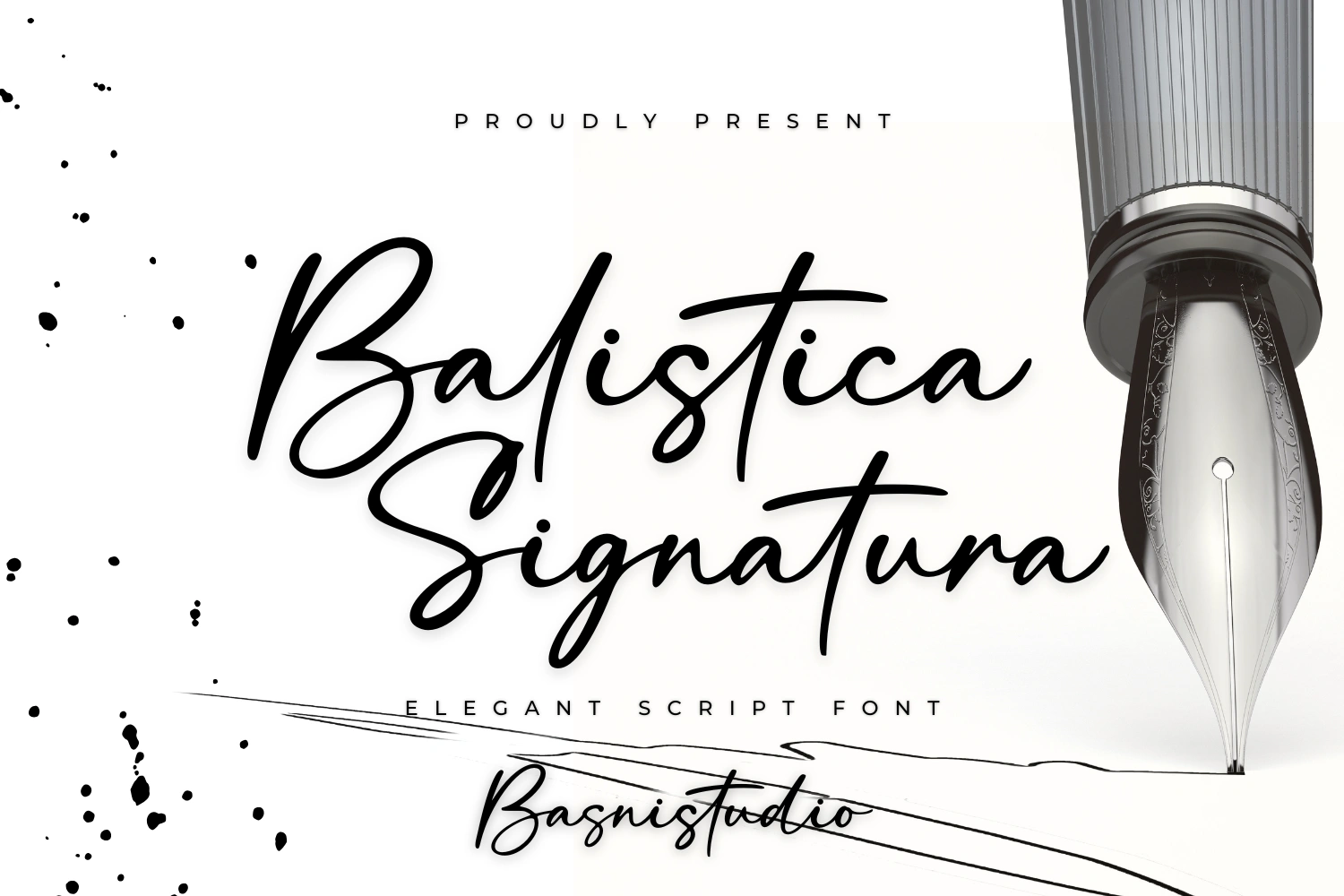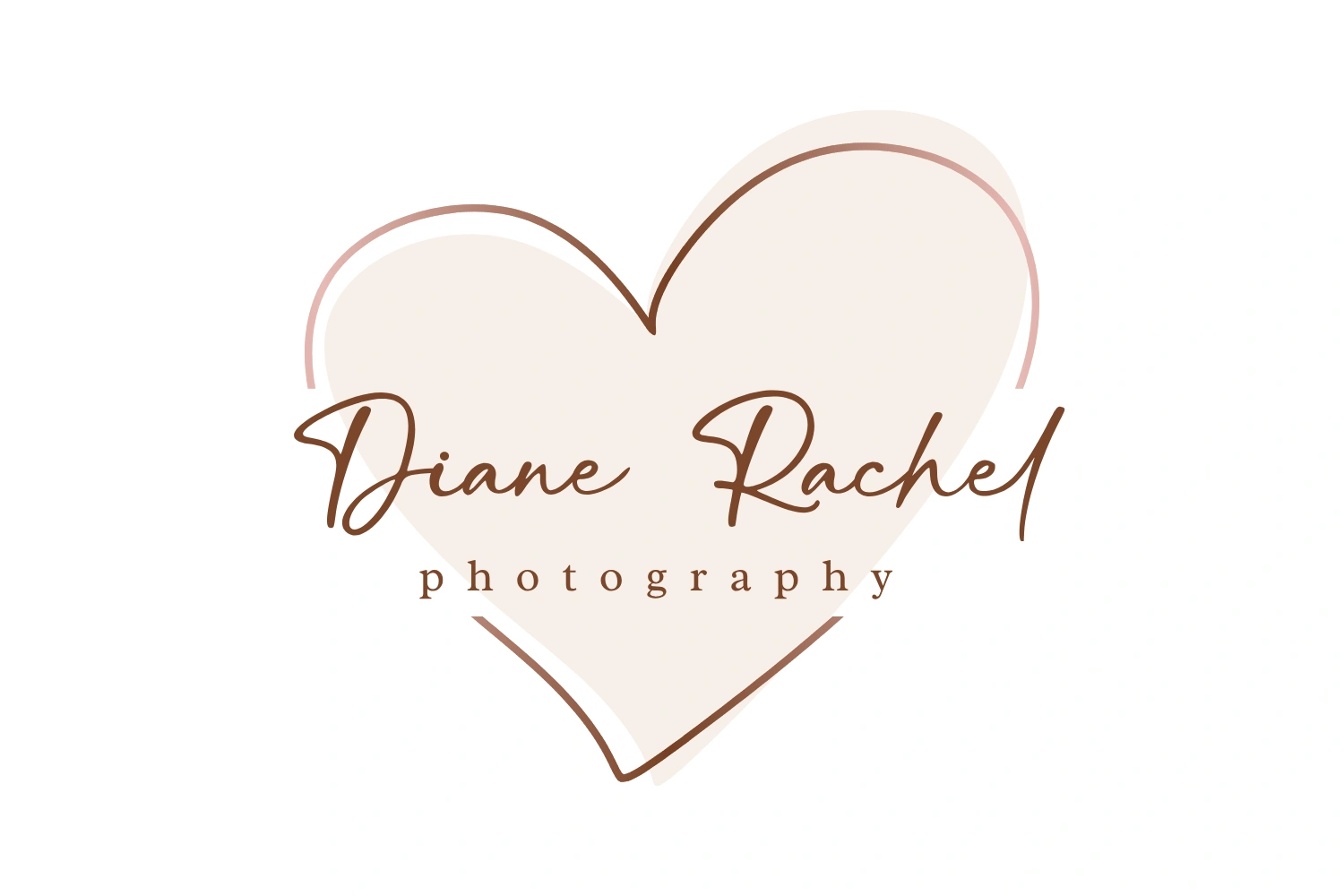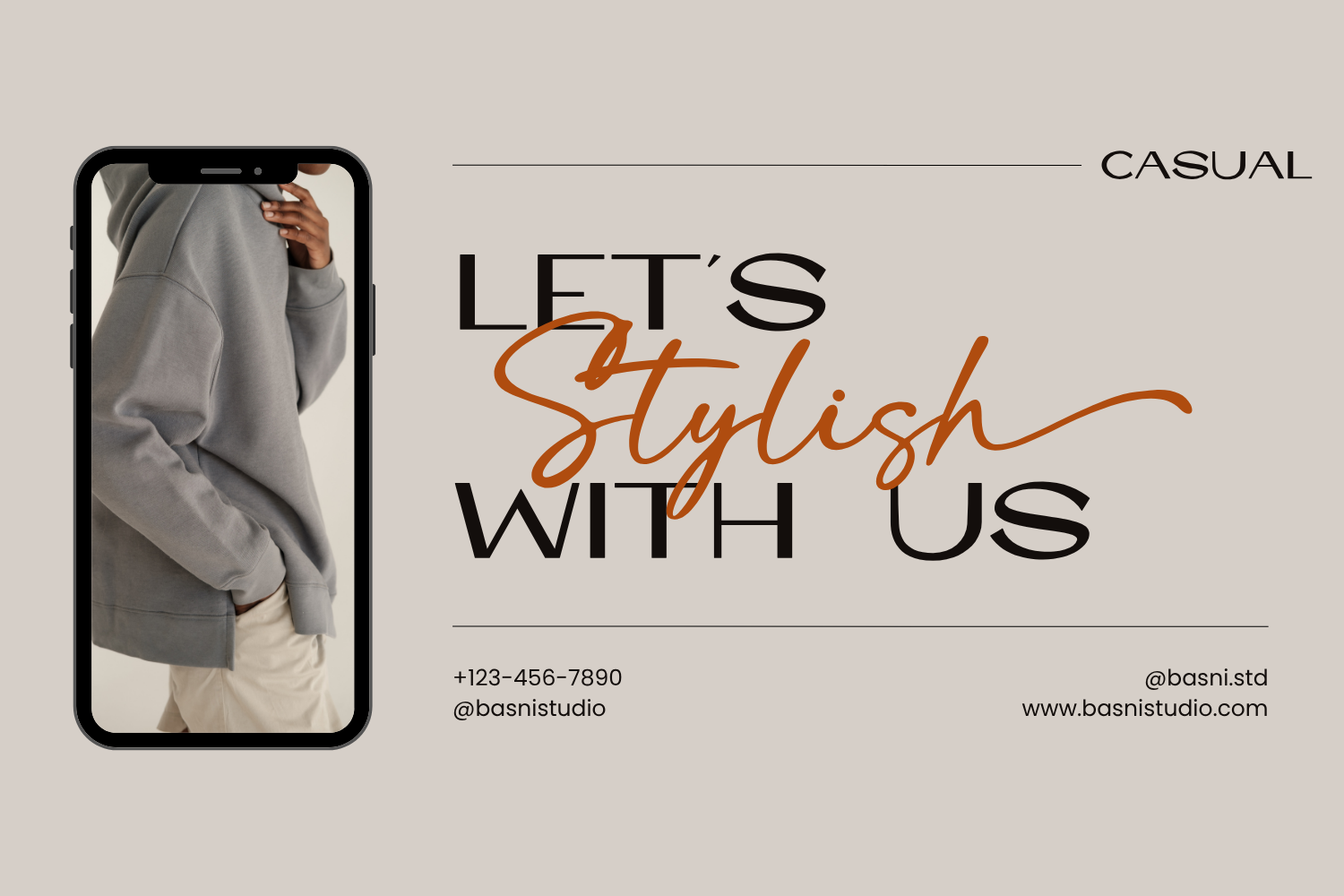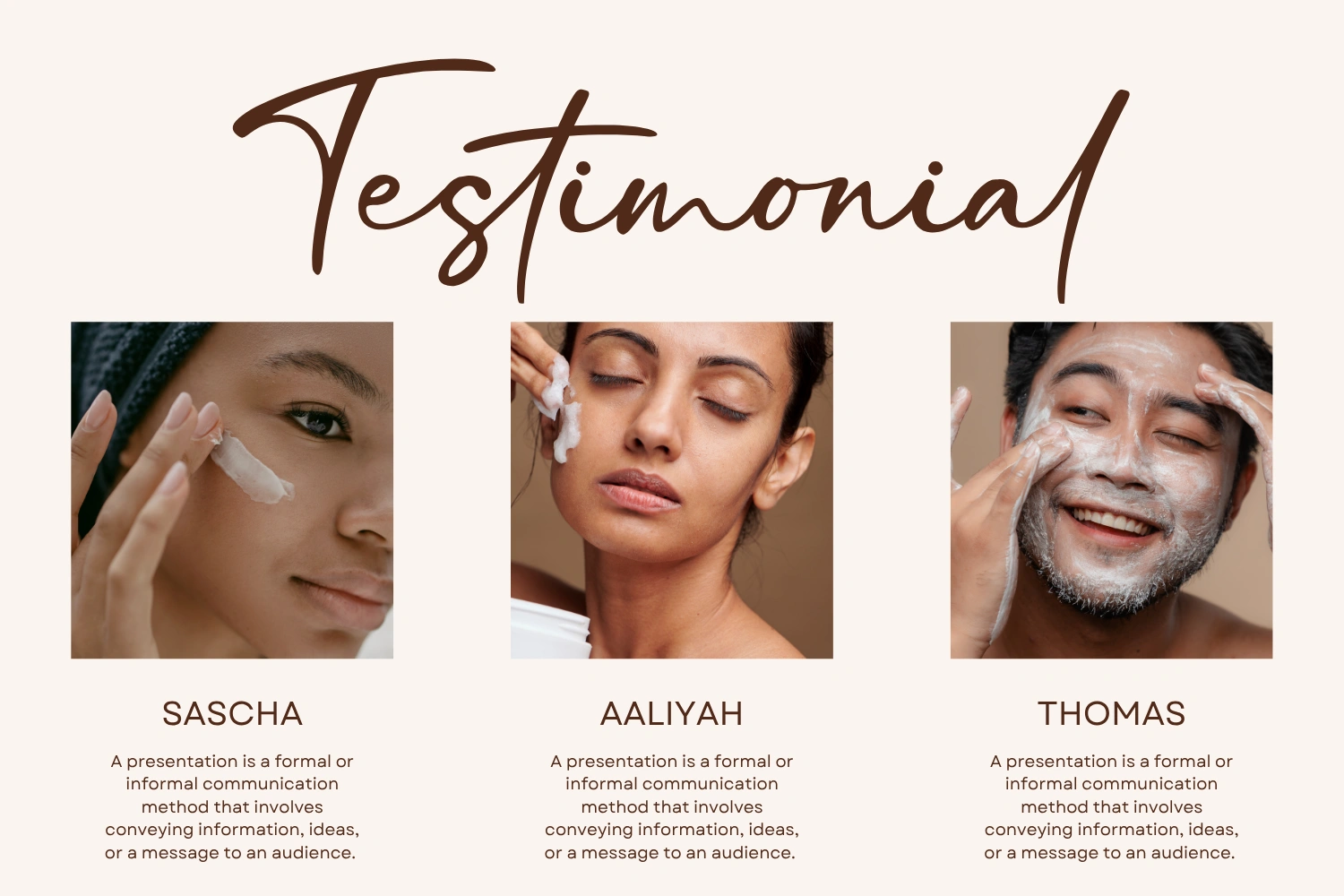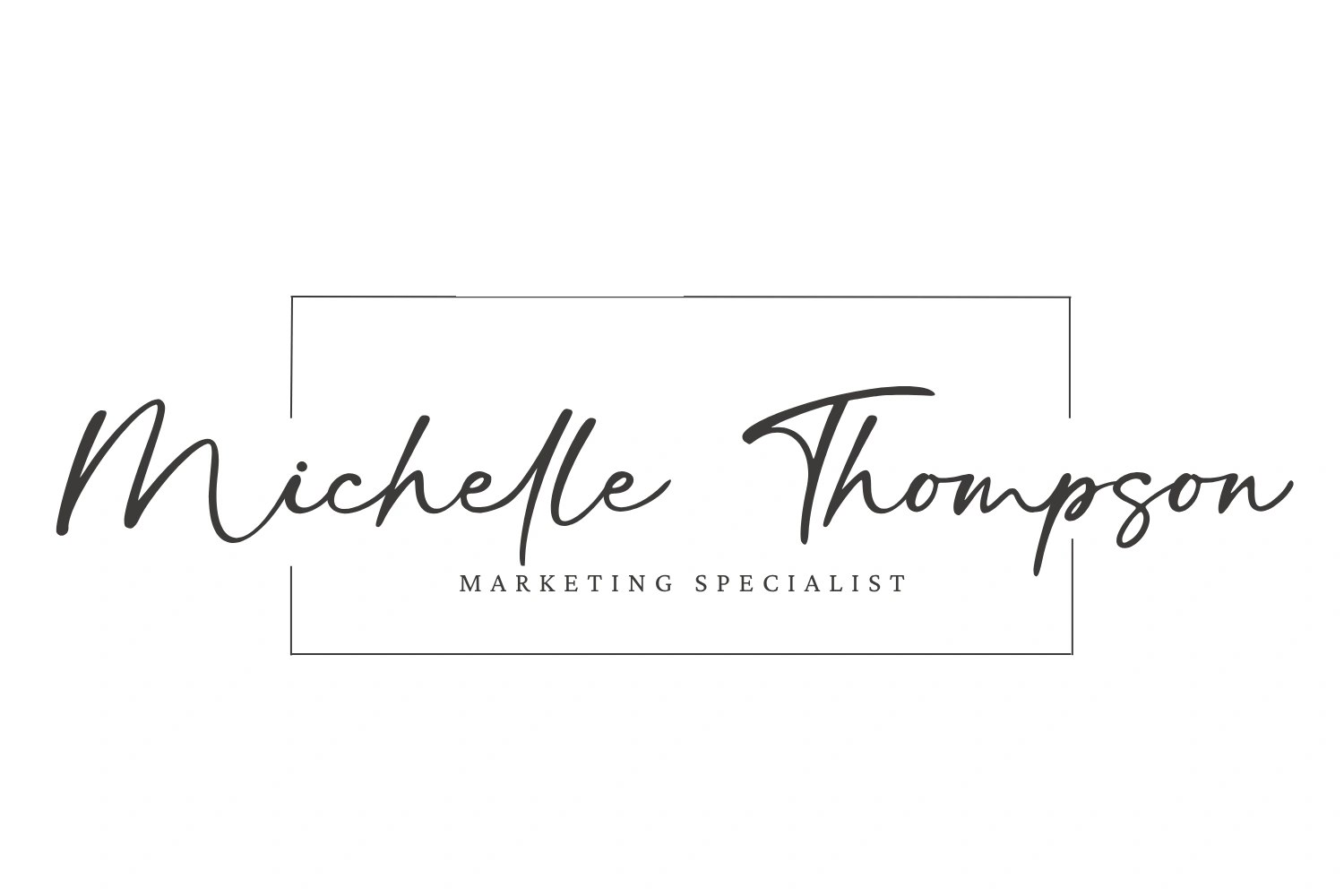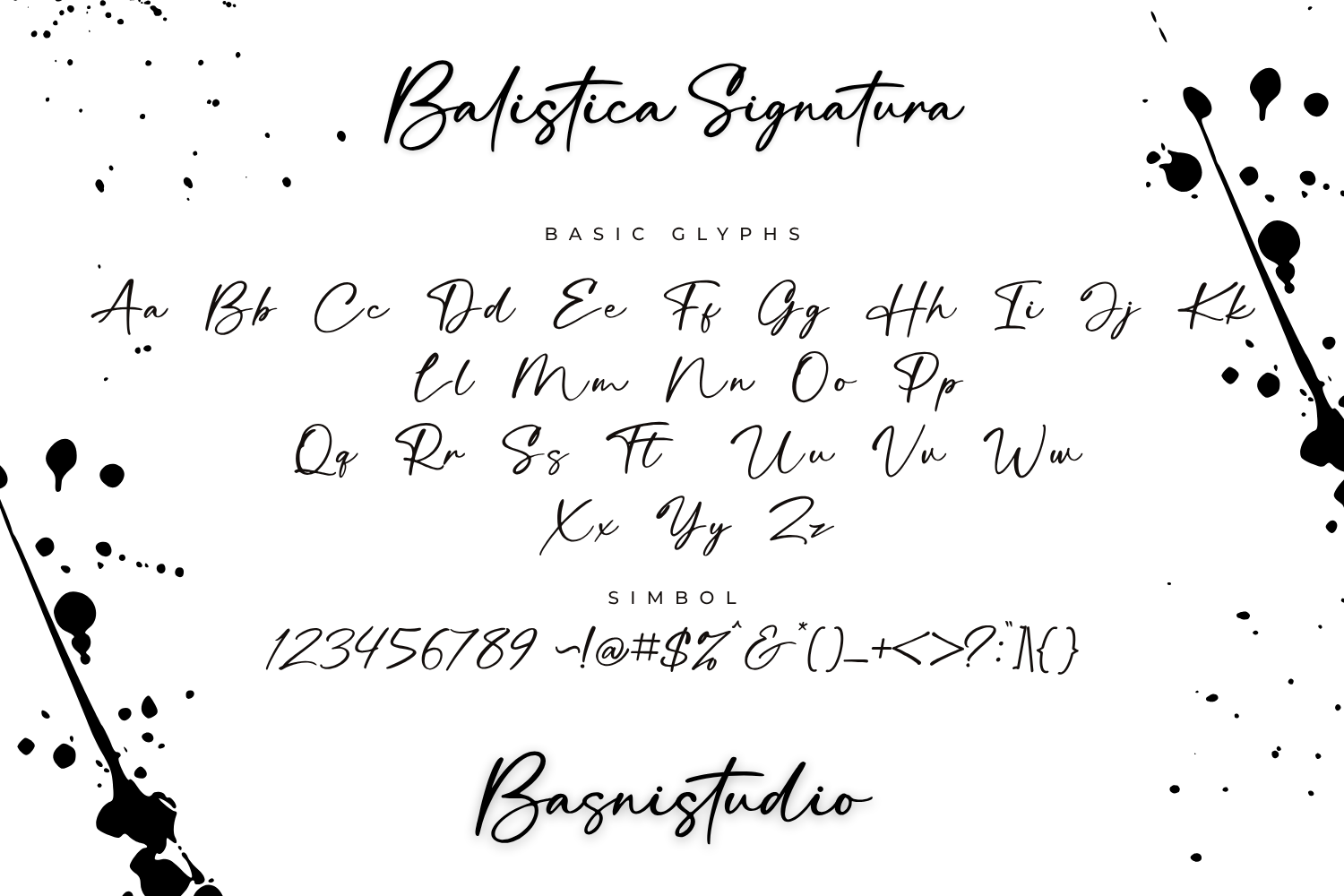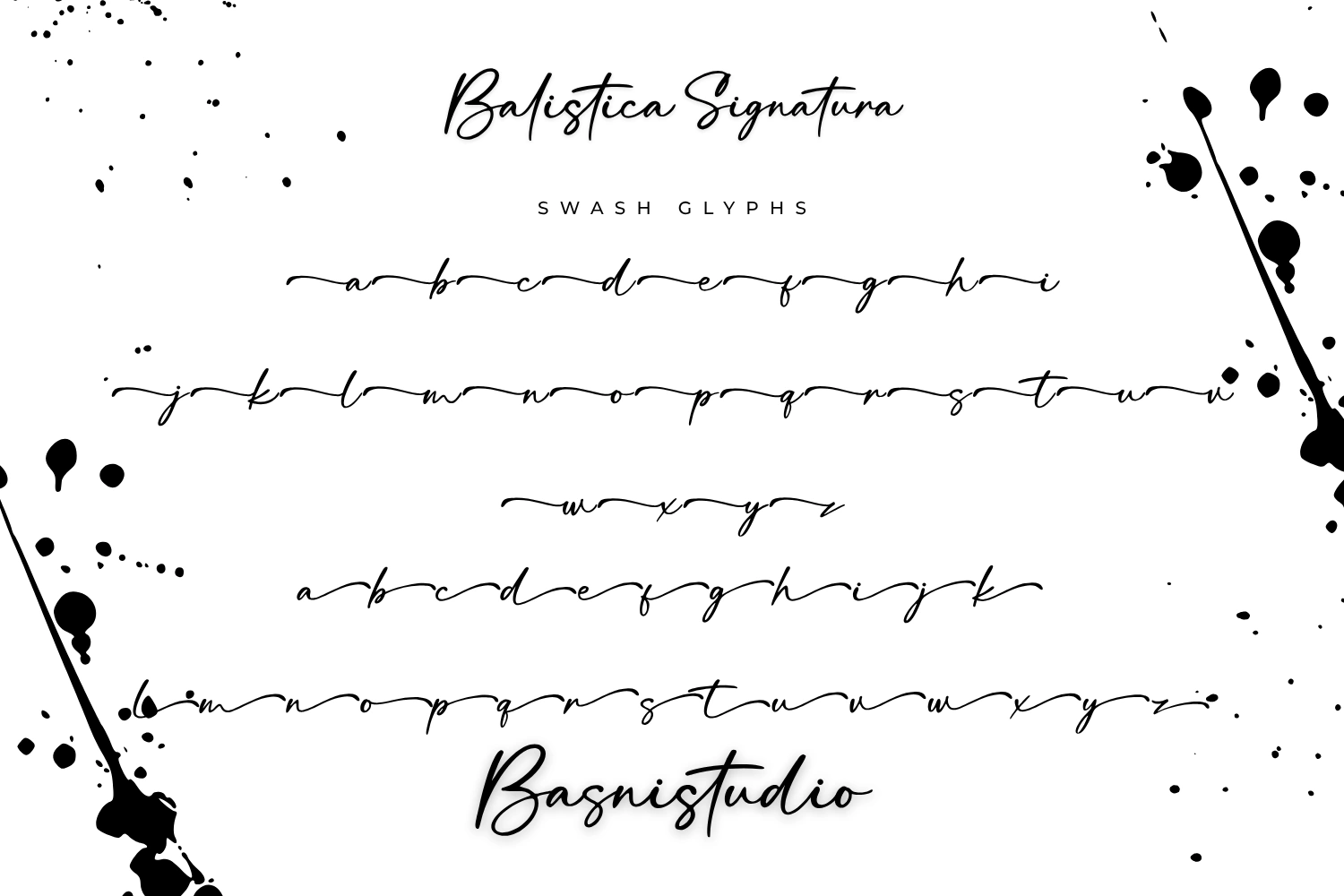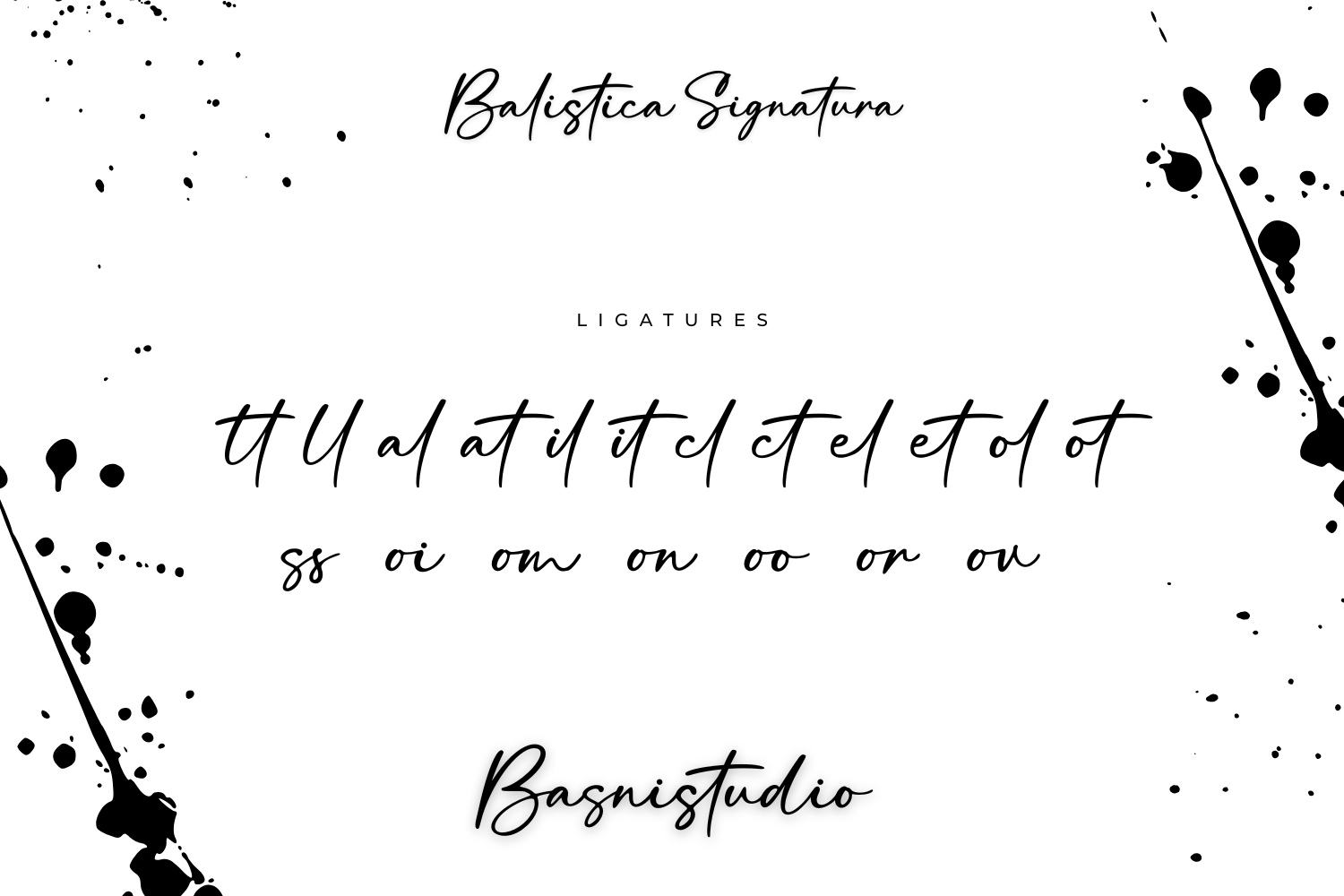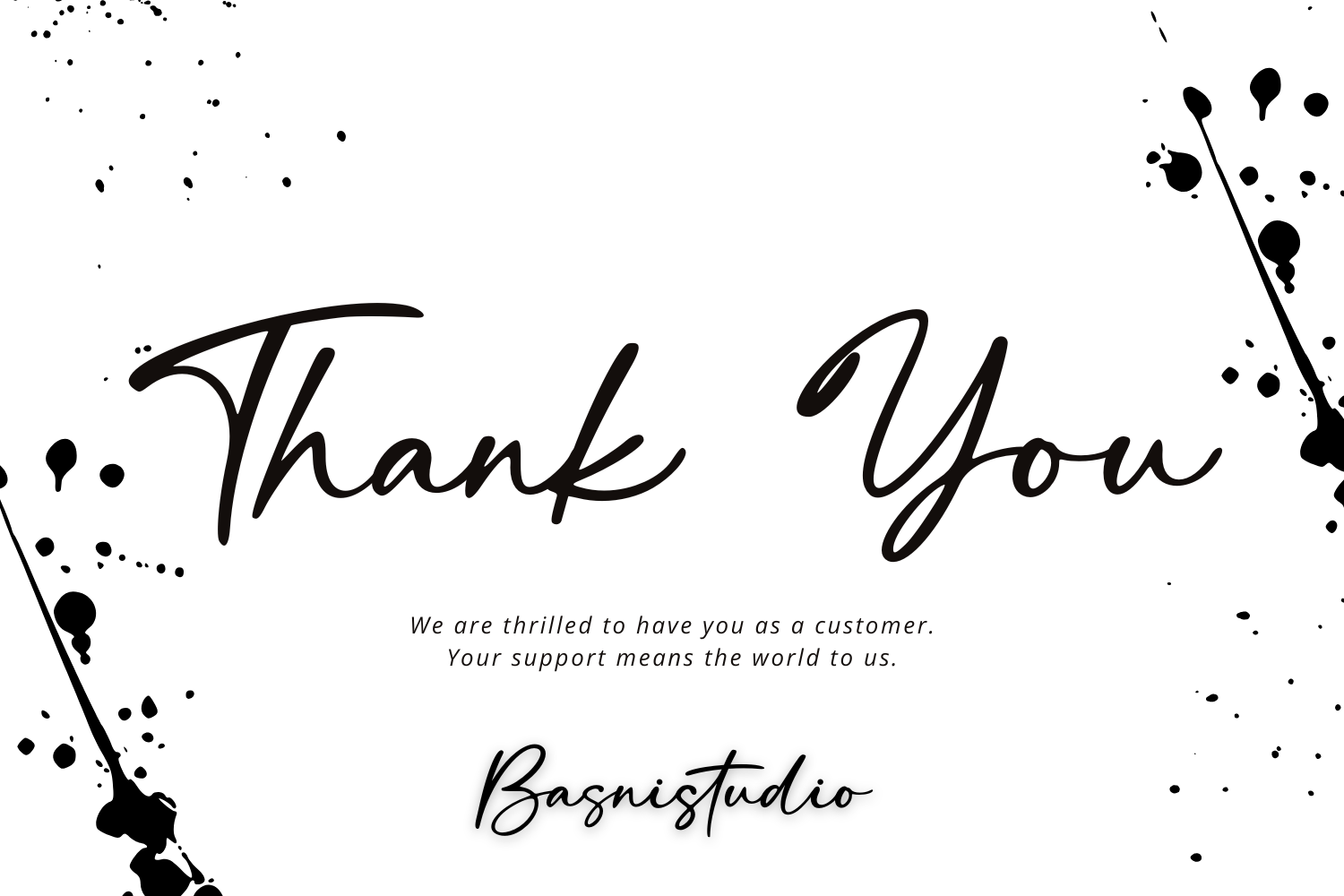
The Perfect Handwritten Touch for Your Designs
Looking for a font that brings warmth, personality, and authenticity to your projects? Balistica Signatura is a Elegant Script Font that adds a elegant, versatile touch to everything from branding and social media to invitations and packaging.
Elegant & Versatile – Perfect for logos, quotes, greeting cards, and more
Authentic Handwritten Feel – Created with real pen strokes for a natural look
Whether you’re building a powerful brand identity or crafting a standout logo, Balistica Signatura is a Elegant Script Font
gives you the creative edge you need.
• Uppercase & lowercase letters
• Ligature
• Multilingual Support ( Support for 90 languages )